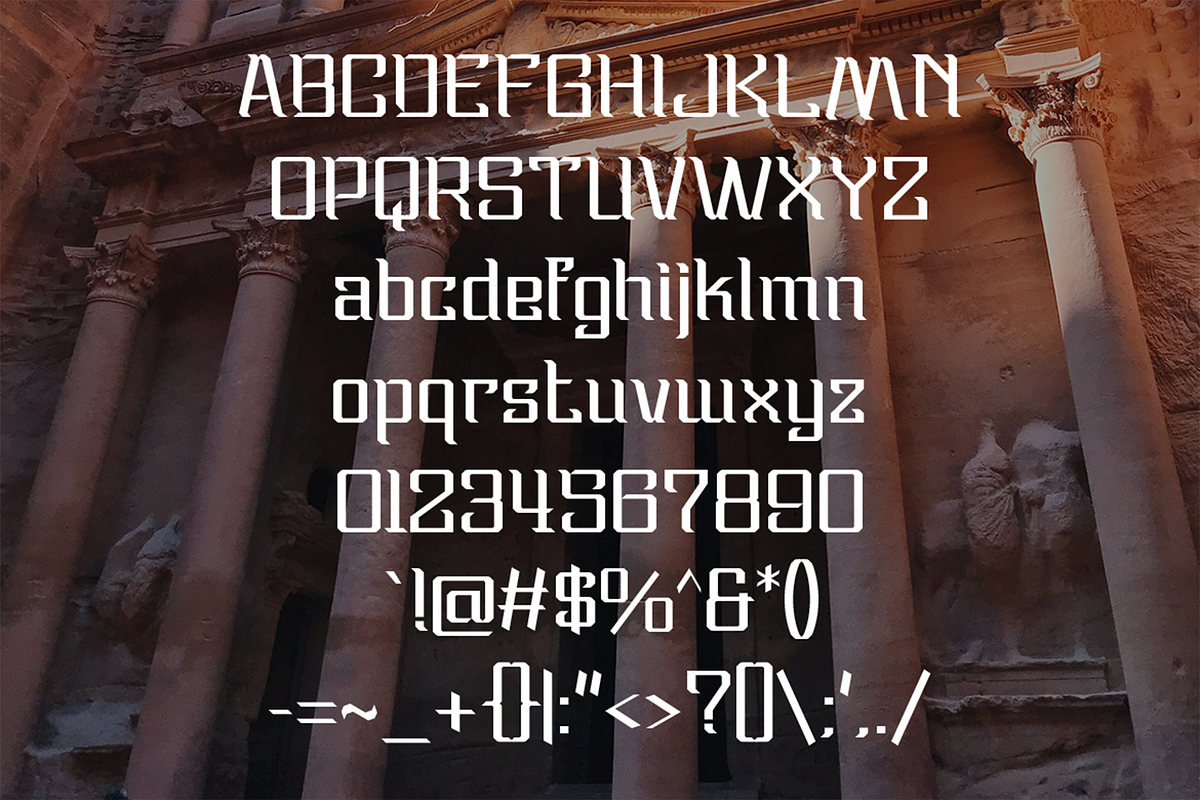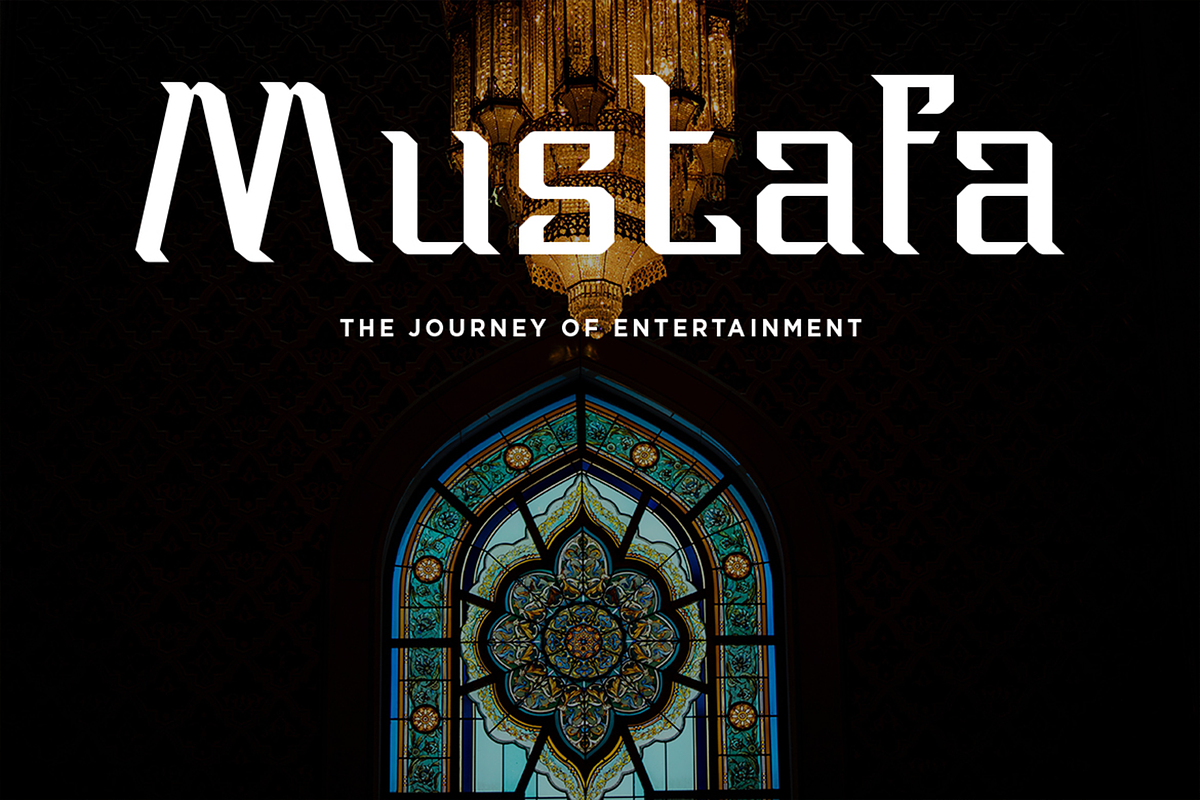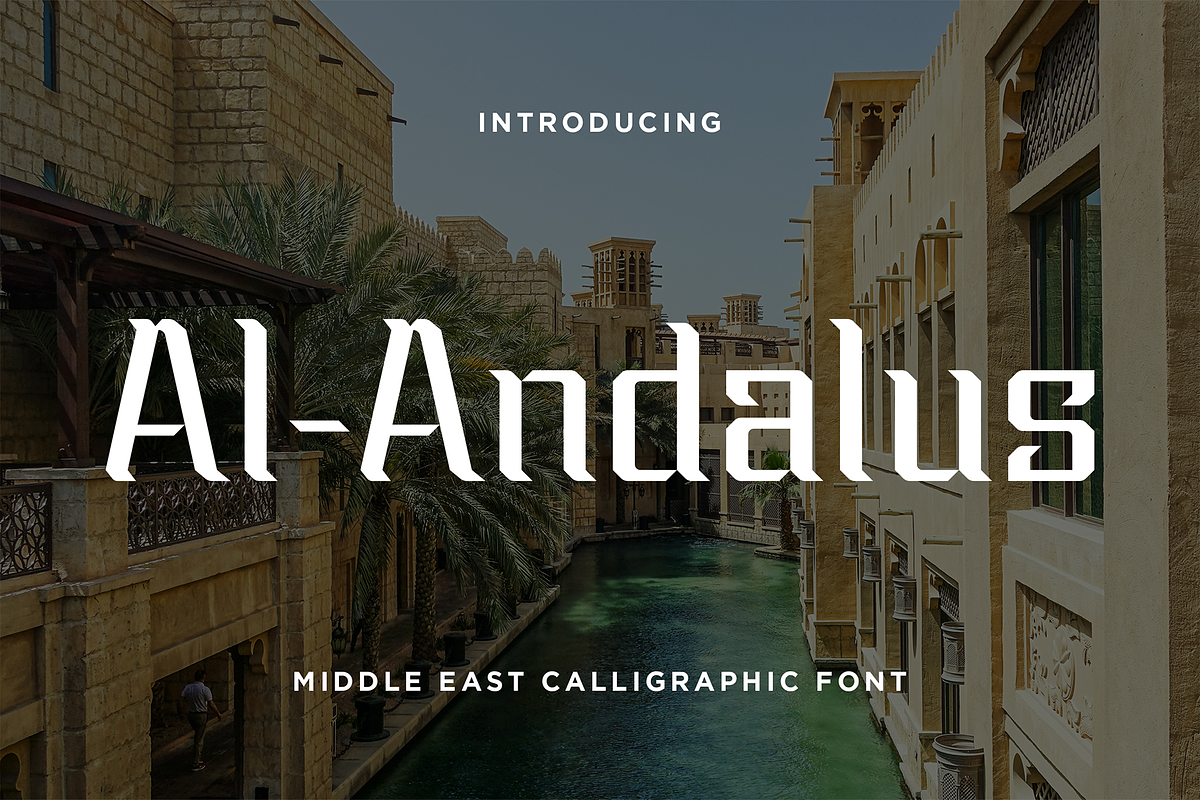
Al-Andalus - Middle East Fonts
Al-Andalus is a typeface inspired by the classic calligraphic letter styles from the middle east culture. Perfectly fit for the logo, branding, book title, to aim the vibe of the middle east concept.